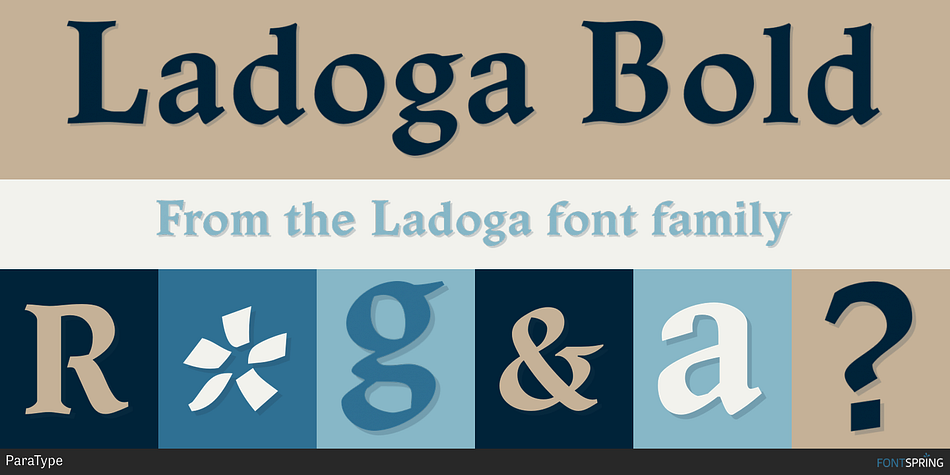
Ladoga
Designed by Viktor Kharyk and Anatoly Shchukin, Ladoga is a serif font family. This typeface has six styles and was published by ParaType.
Ladoga is one of the most beautiful Russian designs from the soviet period. The type family was developed for Polygraphmash in 1968 by Anatoly Shchukin based on his own lettering for book covers and titles. It was one of the first attempts to create a Cyrillic text face in a style of renaissance antiqua. Stylization of broad pen calligraphy resembles early forms of Latin types associated with handwritten humanistic minuscule. Unique in its character set digital version of Ladoga was designed by Viktor Kharyk on the base of artworks of Shchukin for ParaType. The family consists of roman and italic styles in display version and contains 4 basic styles in text version. The fonts include characters of original shapes as well as more modern alternatives. Besides there is a set of additional characters, old style figures and small caps. Ladoga is gorgeous in display sizes and pretty readable in texts. It’s well suitable for fiction literature, historical books, art criticism, religious and philologist works. The first version of the family was released in 2010. In 2013 two bold styles were added to the text version.
Designers Viktor Kharyk, Anatoly Shchukin